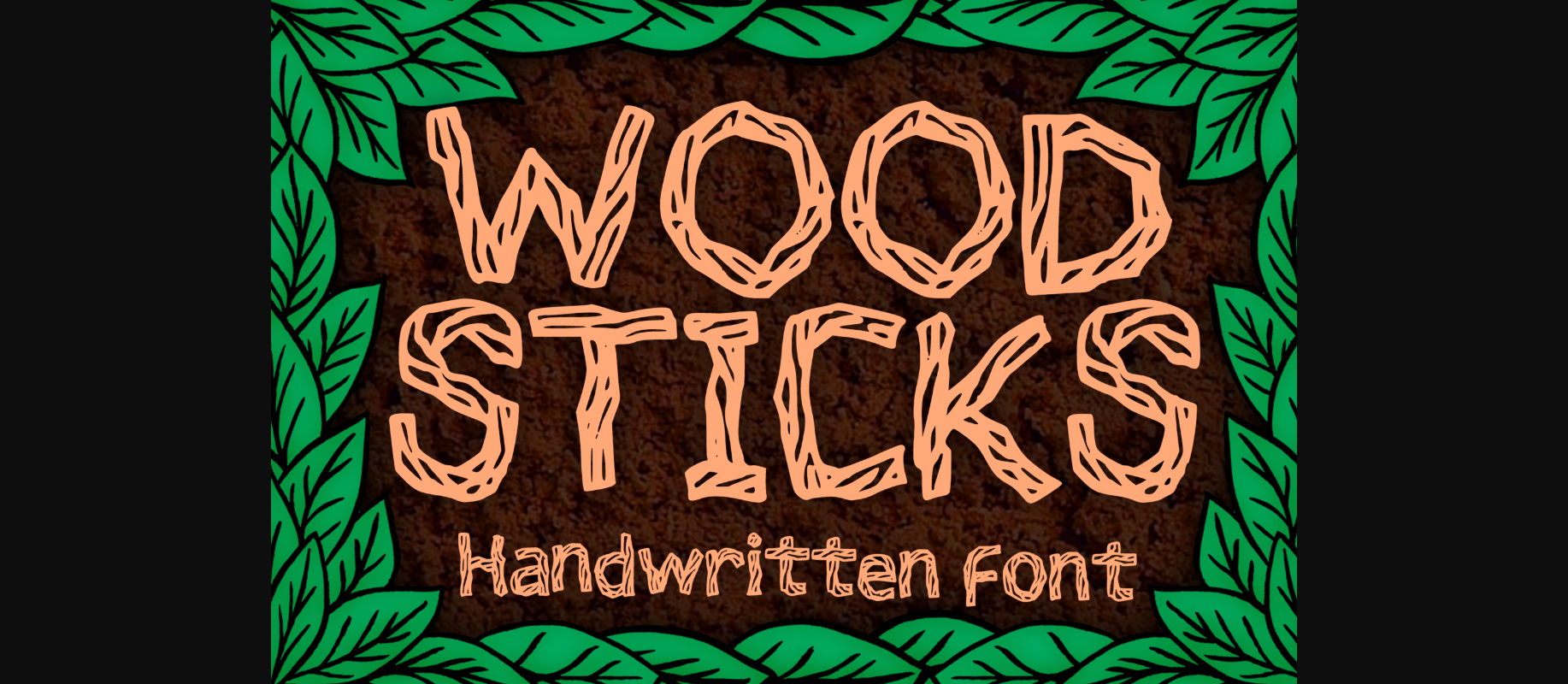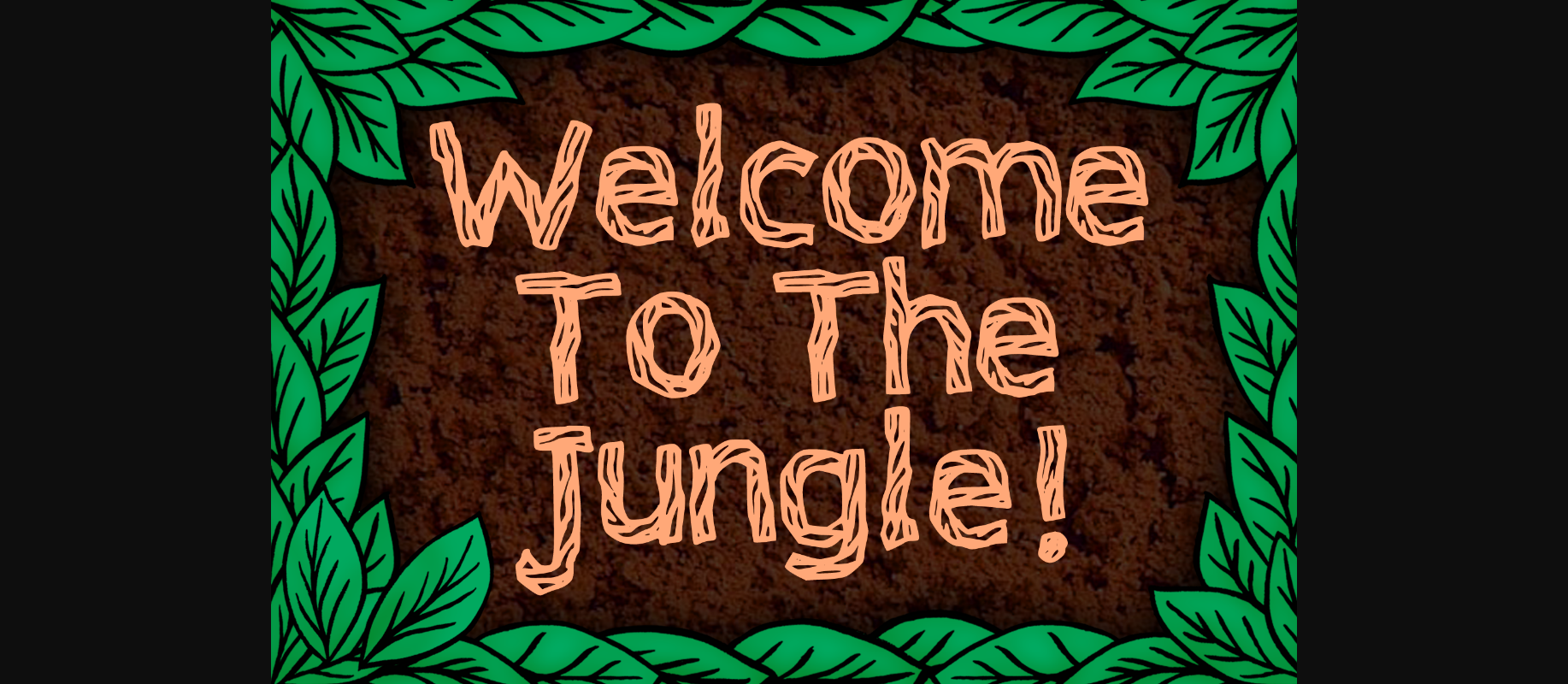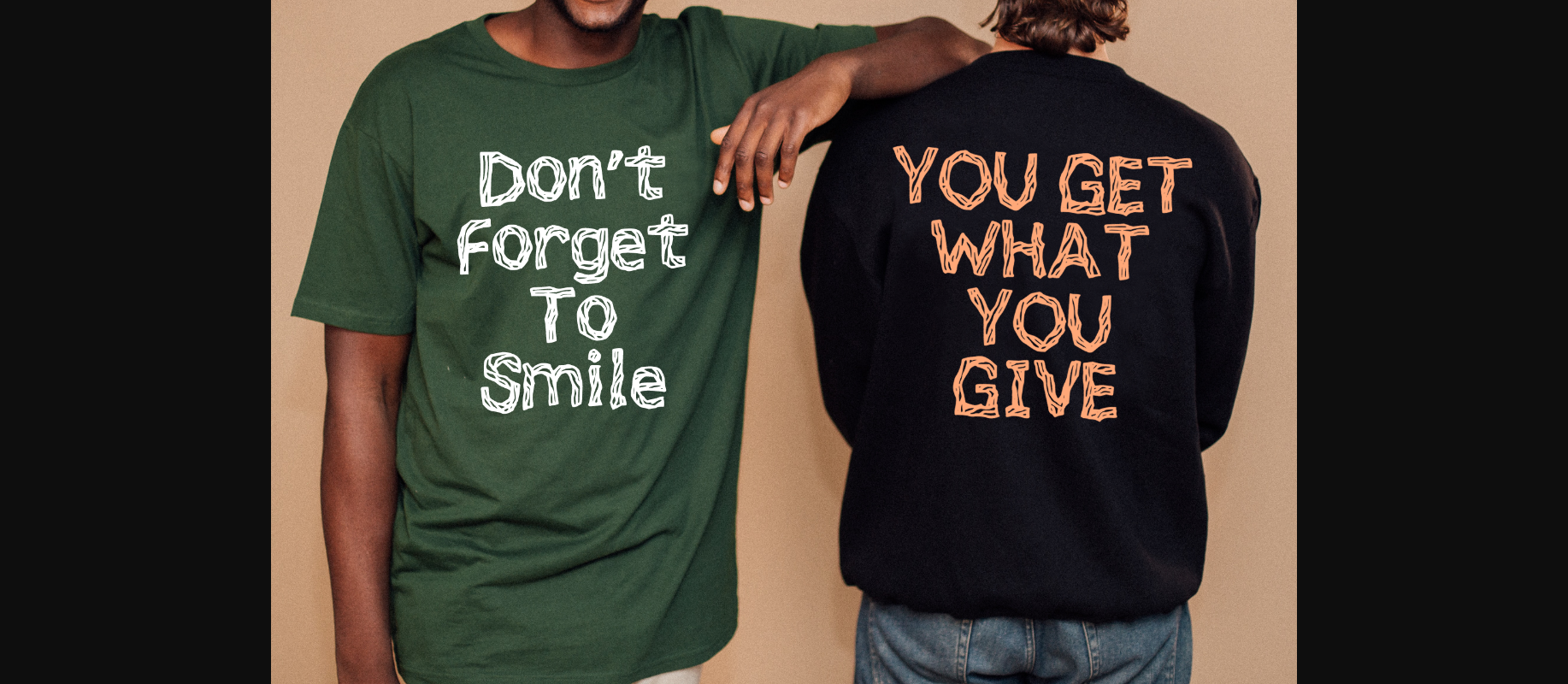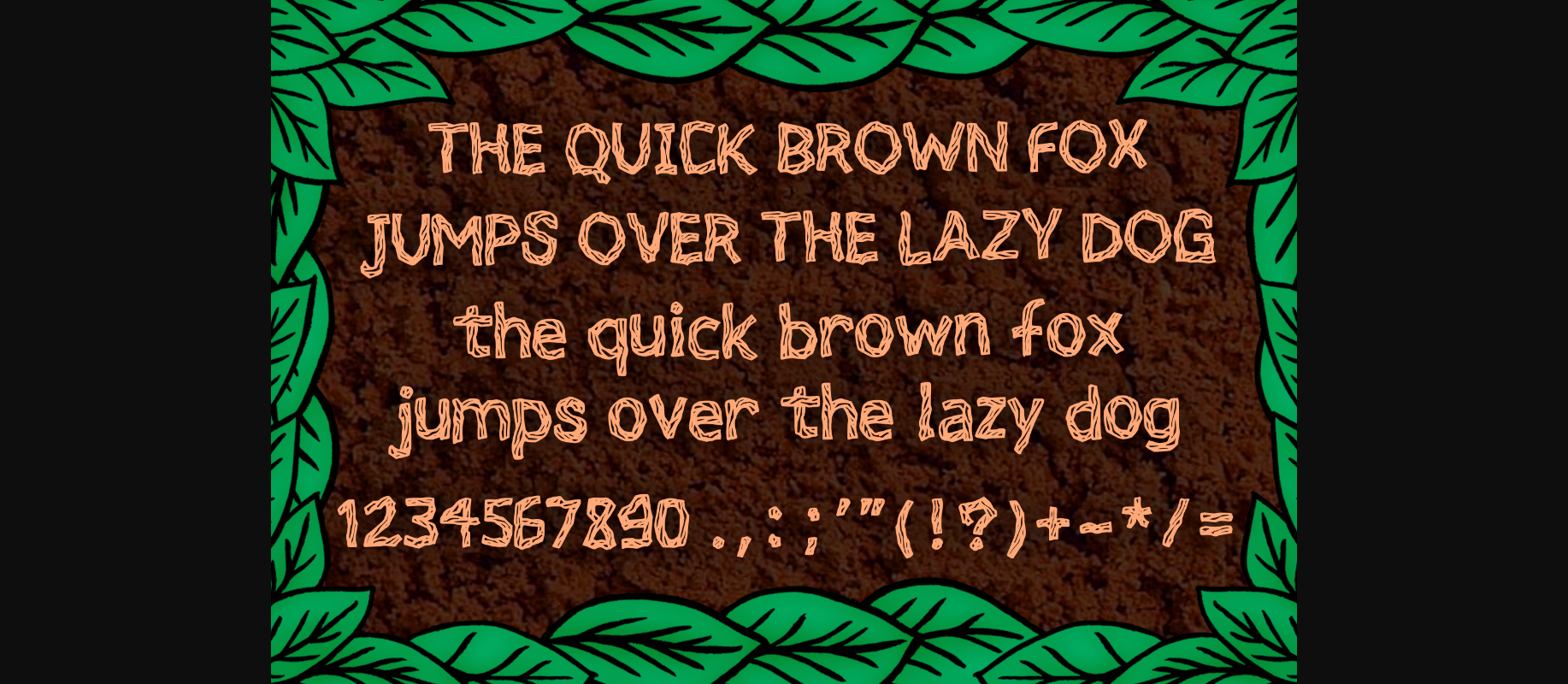
About Wood Sticks Font
Wood Sticks is a nature-themed handdrawn decorative font, you’ll love it every time you use it! You can use it for anything ranging from t-shirts, book designs, illustrations, greeting cards to stickers and posters, or anything that needs a strong yet friendly touch. Fall in love with its incredibly versatile style and use it to create lovely designs!